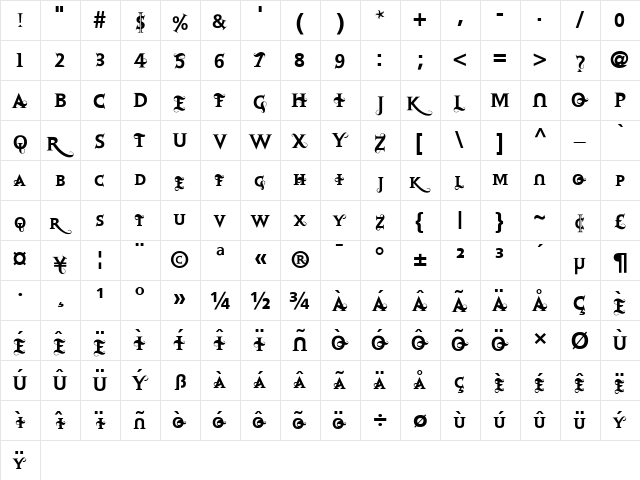
Retoric Regular
Design Context for Retoric Typeface
Retoric is a composed and adaptable typeface that performs quietly and consistently across a wide range of design contexts.